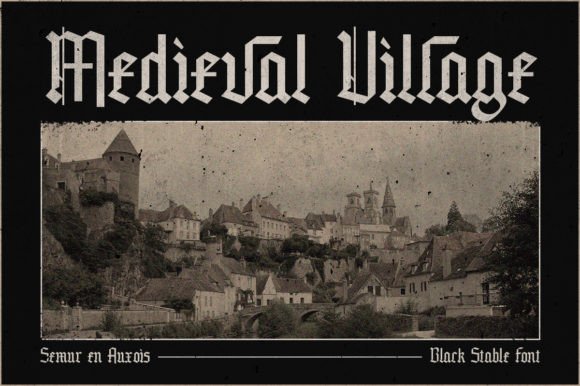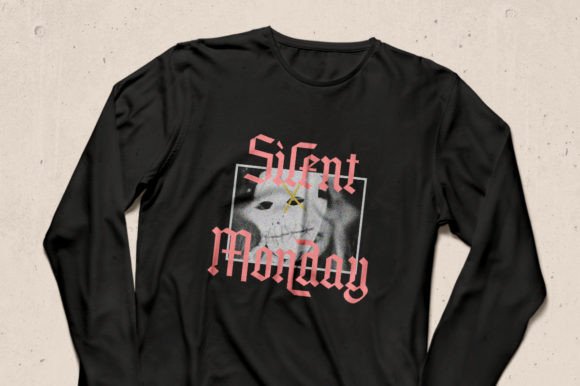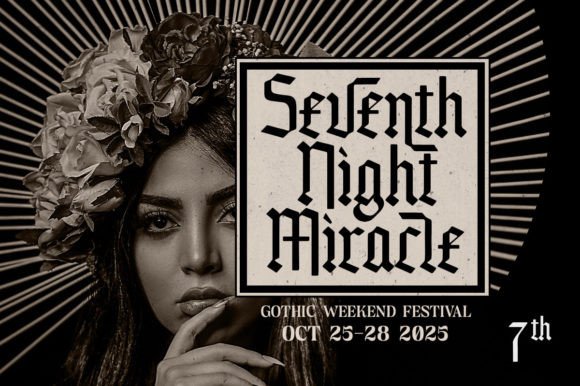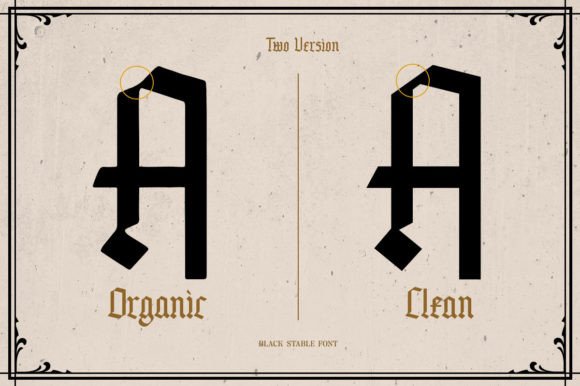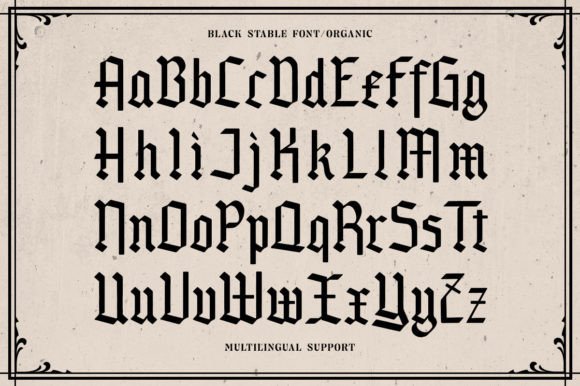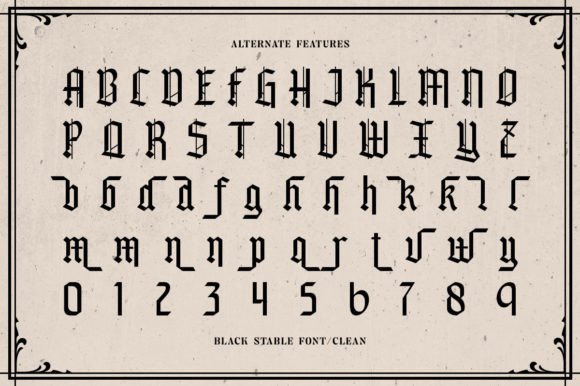
Introducing Black Stable Font: A Modern Blackletter Typeface
In the world of typography, blackletter fonts have always been a popular choice for designers looking to add a touch of elegance and sophistication to their projects. One such font that has gained significant attention in recent times is the Black Stable Font. This modern blackletter typeface is perfect for creating vintage or modern logos, branding, headlines, product packaging, clothing, tags, and more.
What is Black Stable Font?
Black Stable Font is a contemporary blackletter typeface designed to cater to the needs of designers and crafters. Its unique blend of traditional and modern elements makes it an ideal choice for a wide range of projects. The font is PUA encoded, which means that accessing all the glyphs and swashes is a breeze. This feature makes it easy to use and customize, even for those who are new to typography.
Key Features of Black Stable Font
- Modern Blackletter Typeface: Black Stable Font boasts a unique and stylish design that is sure to make your projects stand out.
- PUA Encoded: The font is PUA encoded, making it easy to access all the glyphs and swashes.
- Vintage and Modern Appeal: The font’s design is perfect for creating both vintage and modern logos, branding, and other projects.
- Versatile: Black Stable Font can be used for a wide range of projects, including headlines, product packaging, clothing, tags, and more.
- Elegant and Sophisticated: The font’s elegant and sophisticated design makes it perfect for formal projects.
Use Cases for Black Stable Font
Black Stable Font is a versatile typeface that can be used for a variety of projects. Here are some use cases where this font can shine:
- Logos and Branding: Create stunning logos and branding materials that exude elegance and sophistication.
- Headlines and Titles: Use Black Stable Font to create eye-catching headlines and titles for your blog posts, articles, and other written content.
- Product Packaging: Add a touch of luxury to your product packaging with this beautiful blackletter font.
- Clothing and Apparel: Create stunning clothing and apparel designs that feature the elegant and sophisticated style of Black Stable Font.
- Tags and Labels: Use the font to create custom tags and labels for your products or gifts.
Benefits of Using Black Stable Font
Using Black Stable Font can bring numerous benefits to your design projects. Here are some of the advantages of using this modern blackletter typeface:
- Unique and Stylish Design: The font’s unique design will help your projects stand out from the crowd.
- Ease of Use: The PUA encoded font makes it easy to access all the glyphs and swashes, saving you time and effort.
- Versatility: Black Stable Font can be used for a wide range of projects, making it a great addition to your font library.
- Elegance and Sophistication: The font’s elegant and sophisticated design will add a touch of luxury to your projects.
In conclusion, Black Stable Font is a modern blackletter typeface that is perfect for designers and crafters looking to add a touch of elegance and sophistication to their projects. Its unique blend of traditional and modern elements, PUA encoding, and versatility make it an ideal choice for a wide range of projects. Whether you’re creating logos, branding materials, headlines, product packaging, clothing, tags, or labels, Black Stable Font is sure to impress.